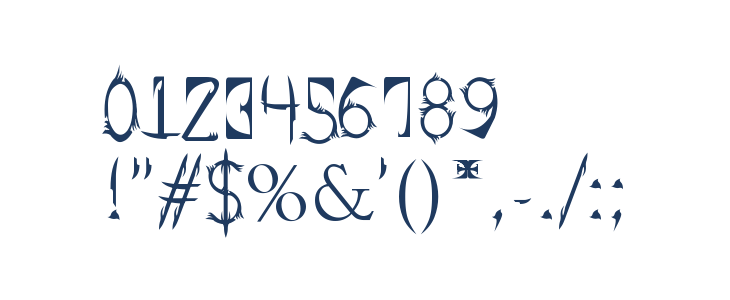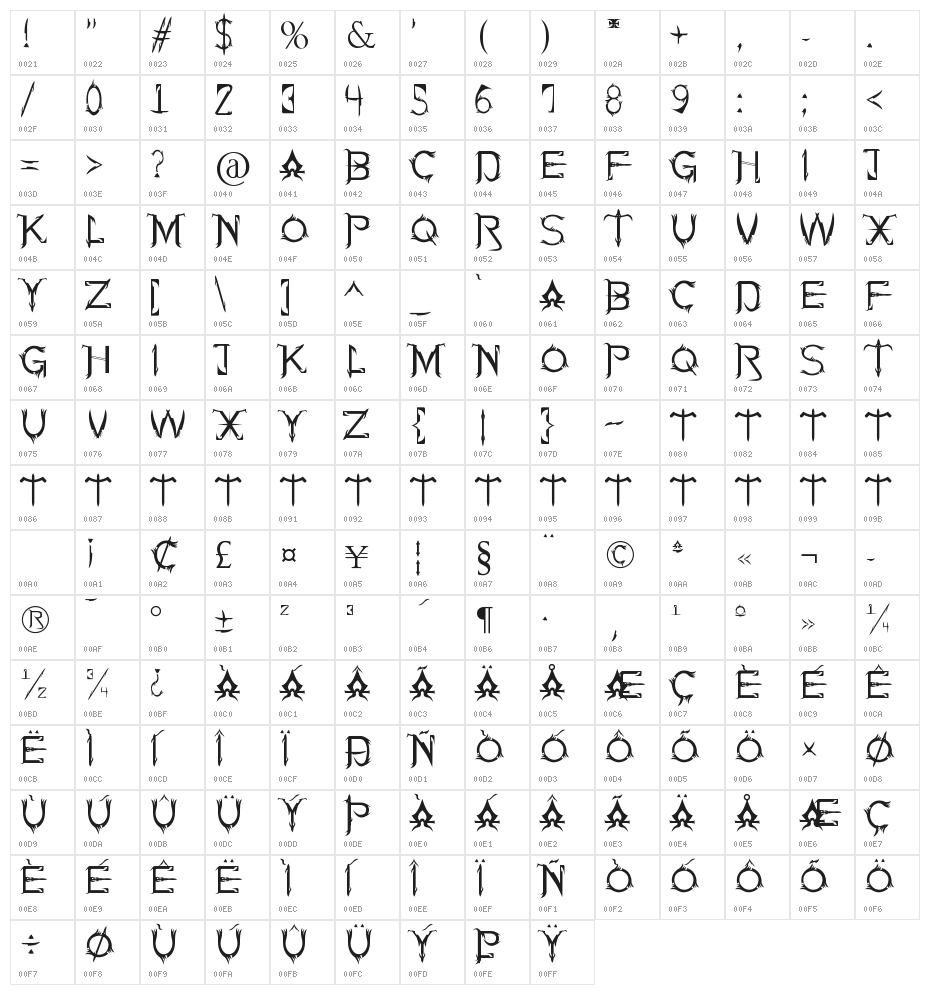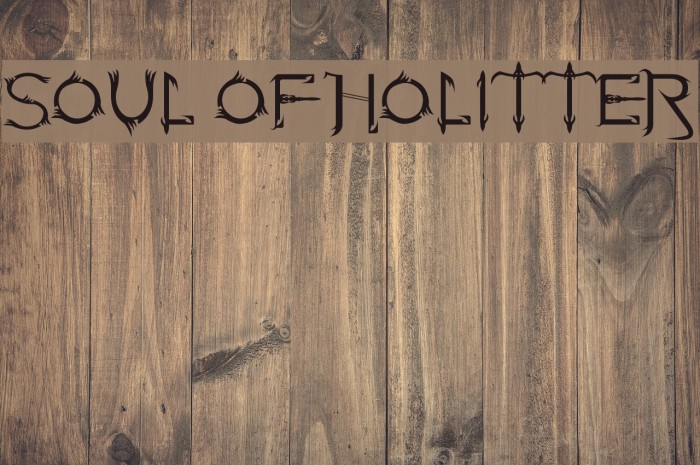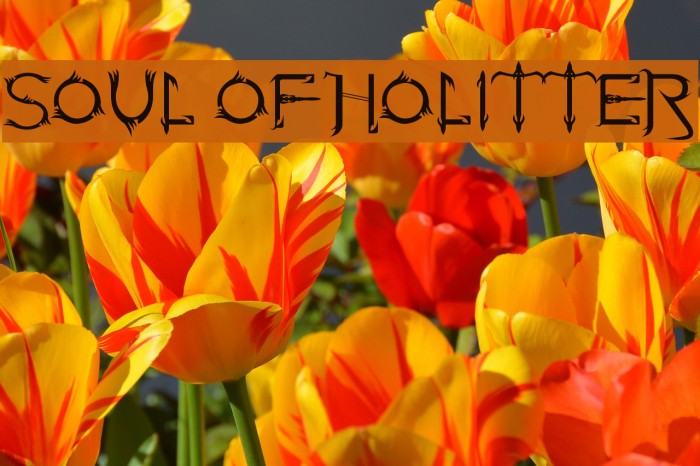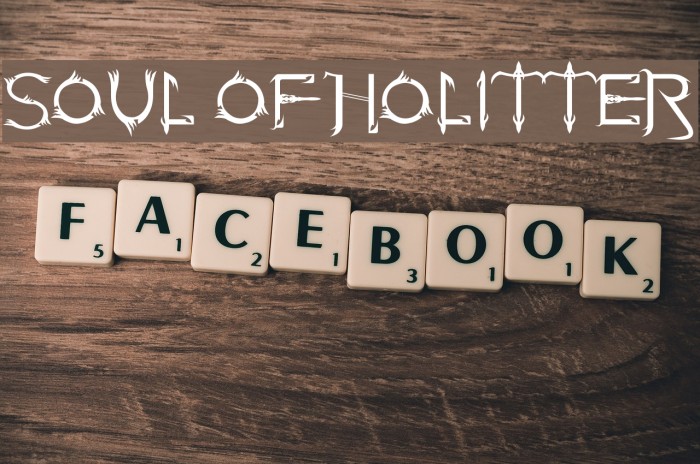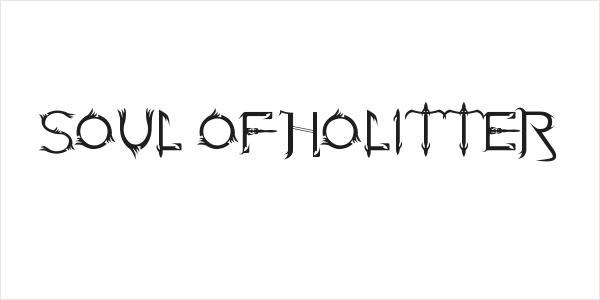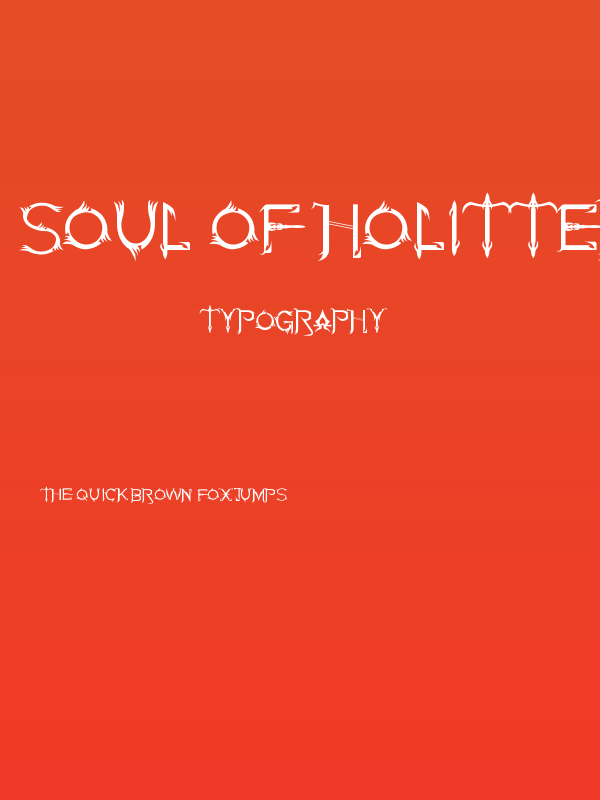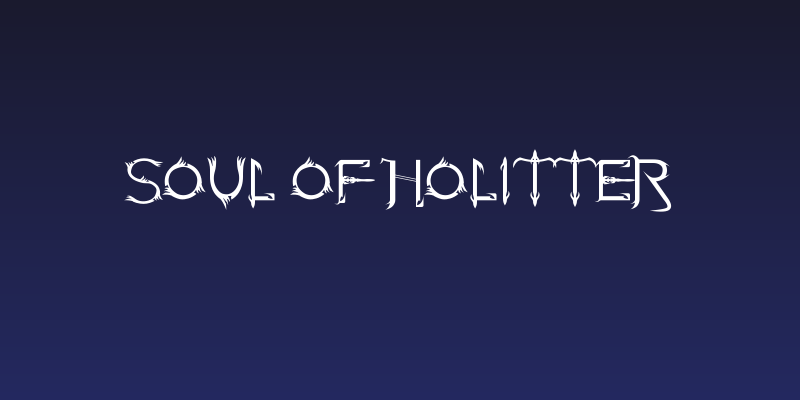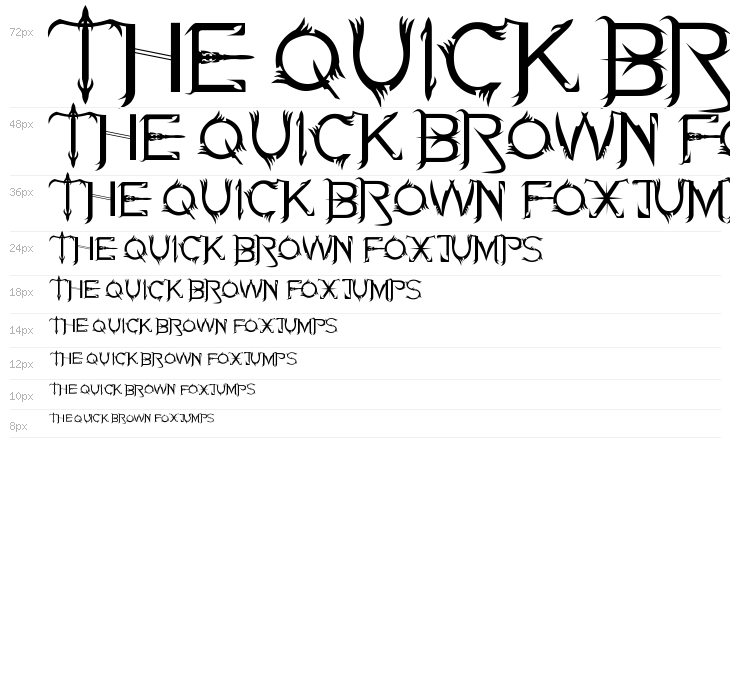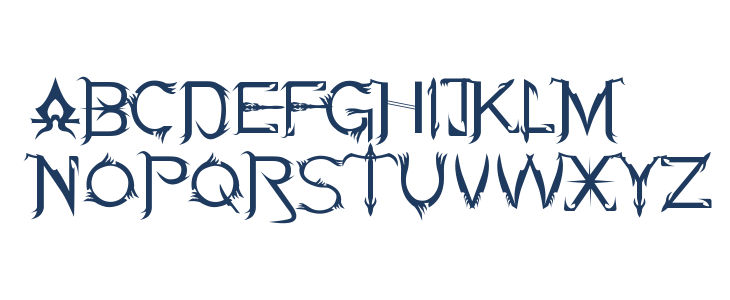
Soul Of Holitter Font
Soul Of Holitter Description
This font features a highly decorative and intricate design, characterized by sharp, angular edges and unique embellishments that give it a gothic and somewhat mystical appearance. The uppercase letters are particularly striking, with elaborate serifs and pointed extensions that create a sense of drama and intensity. The lowercase letters maintain a similar style, ensuring consistency throughout the typeface. Numbers and special characters are equally ornate, with bold strokes and distinctive shapes that make them stand out. This font's overall aesthetic is bold and eye-catching, making it suitable for projects that require a strong visual impact.
Overall StyleGothic, Decorative